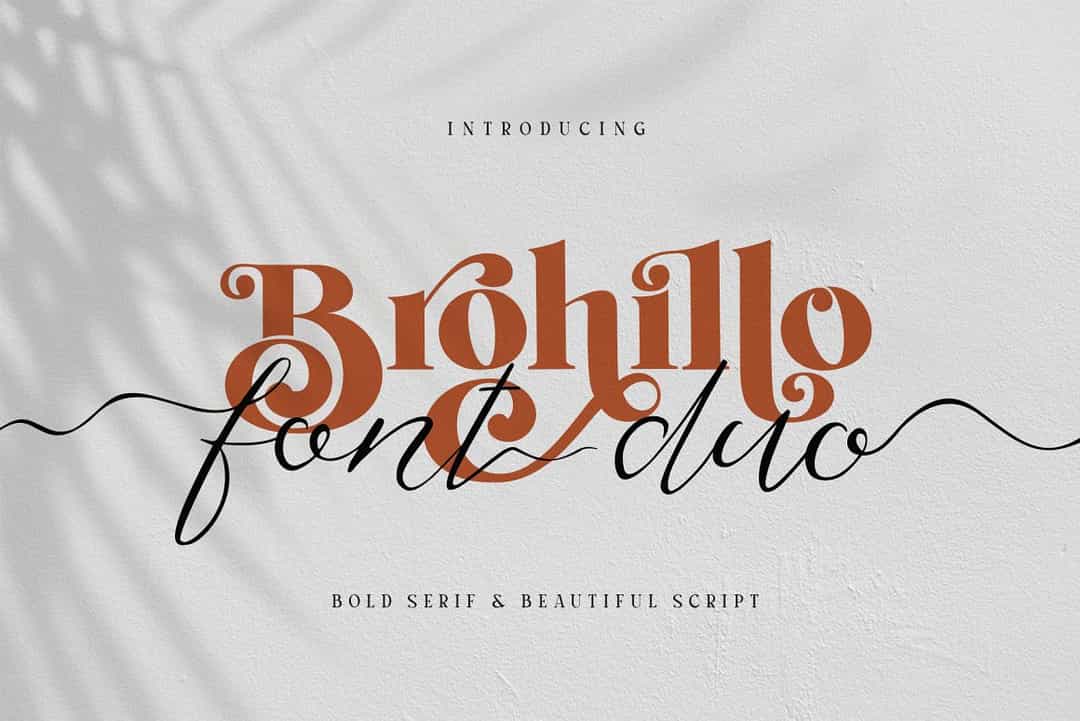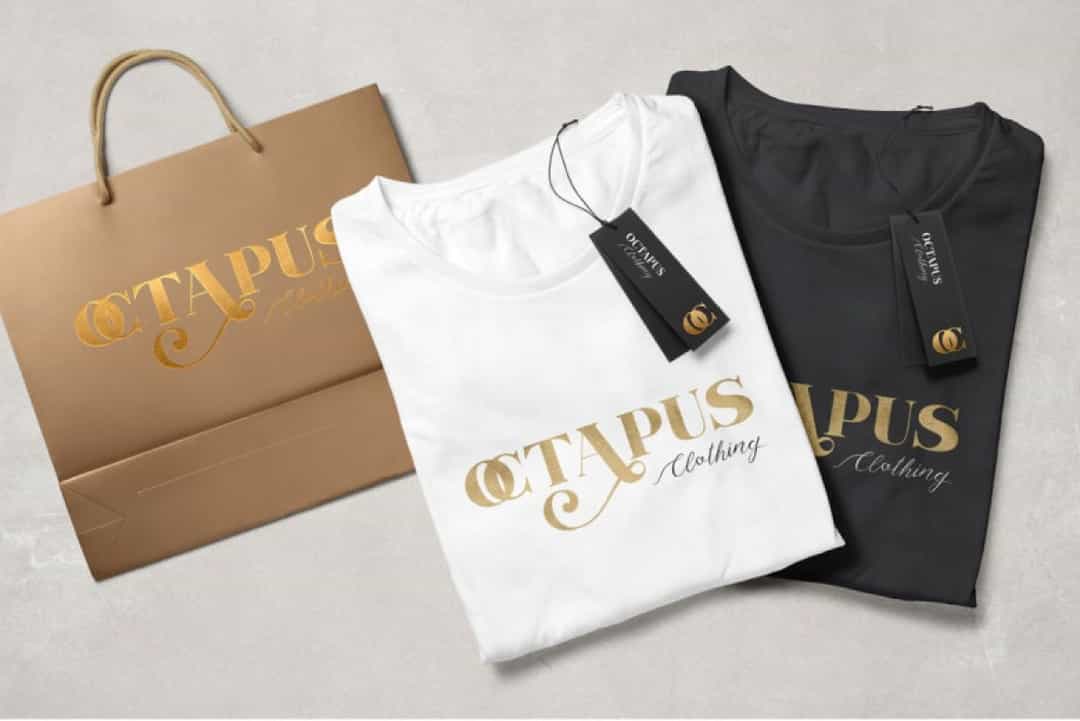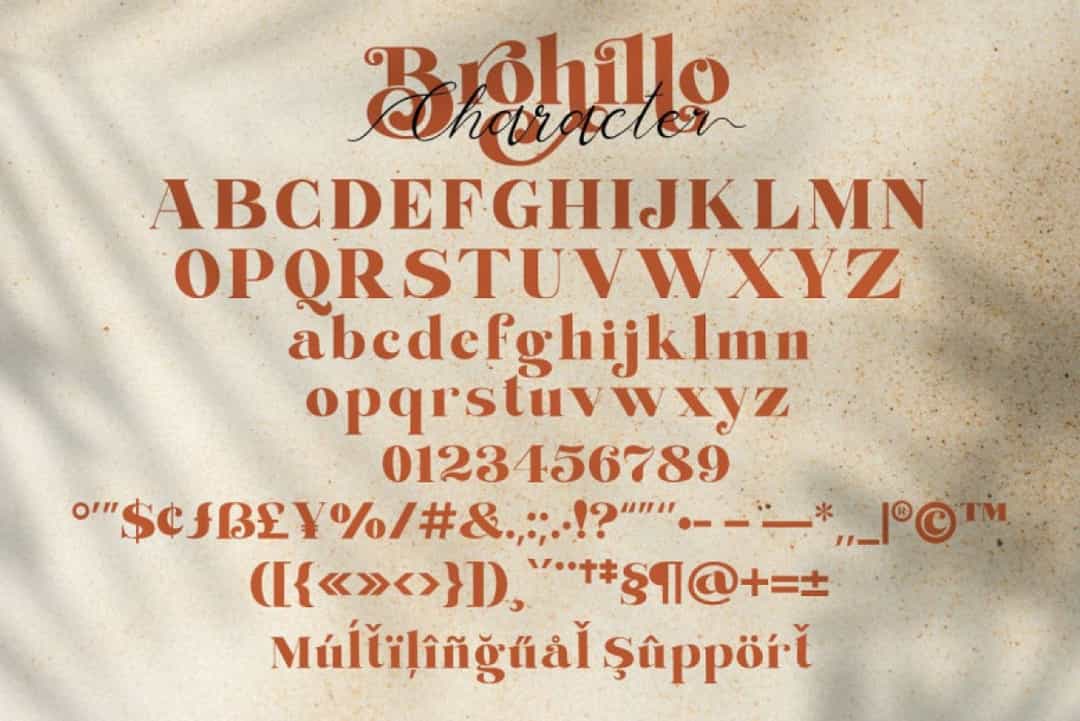
Brohillo Serif font was inspired by the rising use of typefaces for wedding purposes, making this font stylish yet bold in design – ideal for use on Valentine cards or romantic quotes for designs encompassing romantic themes such as wedding venues.